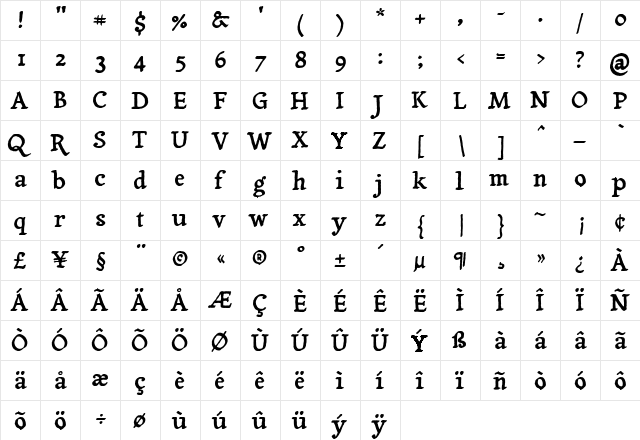
Yanone Tagesschrift Regular
| Foundry | Yanone |
| Designer | Yanone |
Design Context for Yanone Tagesschrift Typeface
Yanone Tagesschrift is a composed and adaptable typeface that performs quietly and consistently across a wide range of design contexts.
Pro Tip: Use Yanone Tagesschrift in both headline and body roles to test its range before committing to a single application.